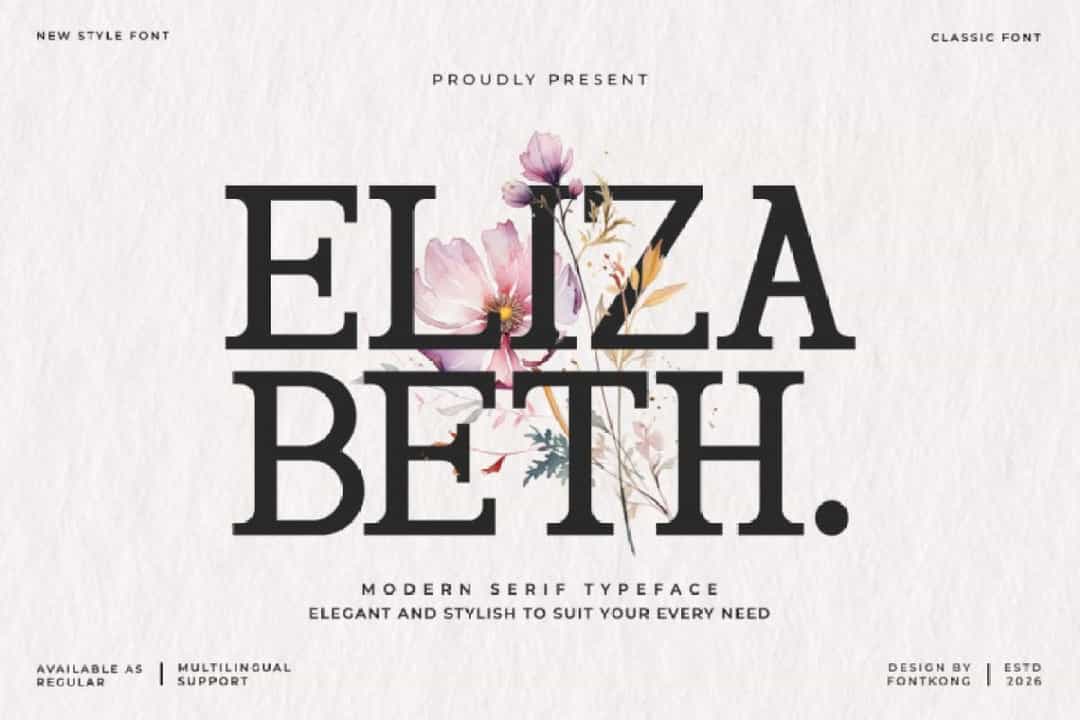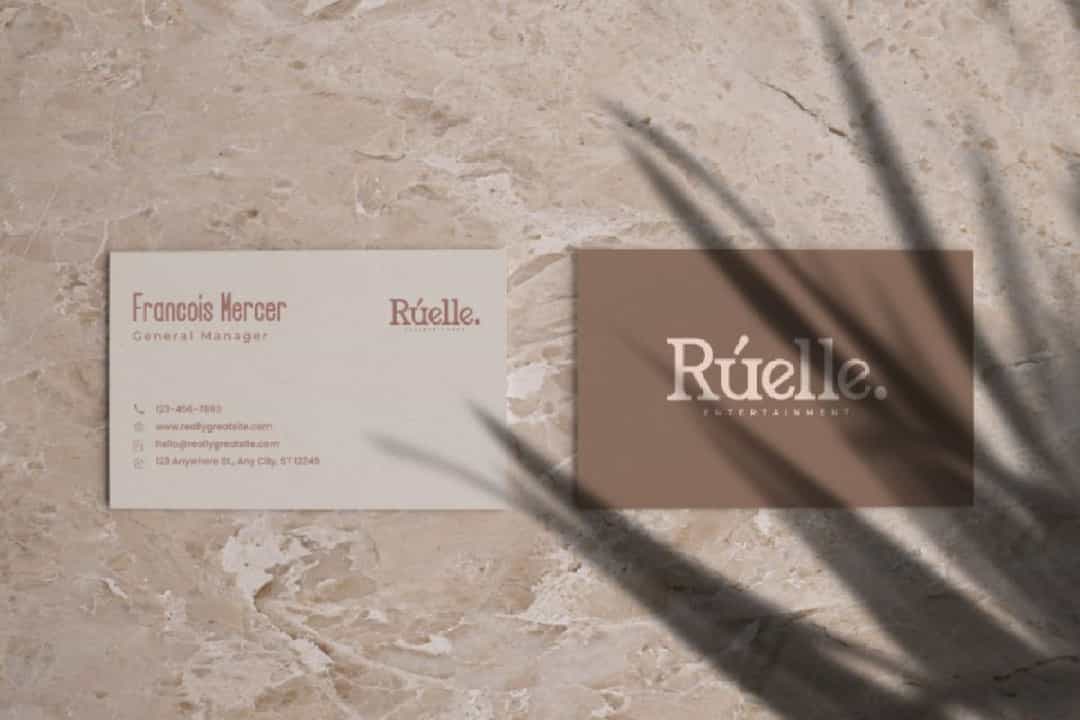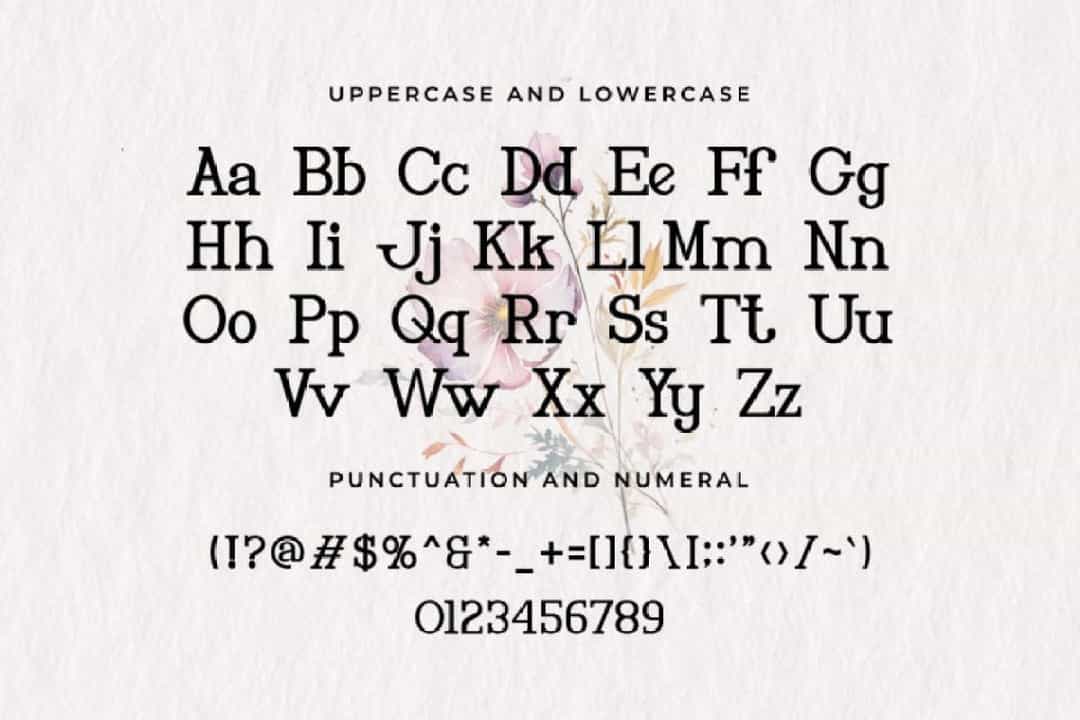
Elizabeth is a modern serif category font that has the most graceful appearance. It is simple and artistic at the same time, which means that this font can be used for many different objectives. In the both texts, large and small, this font is clear and desired. The font that is used in the logo of the company is called Elizabeth Font and this is a modern font as well as a stylish font.